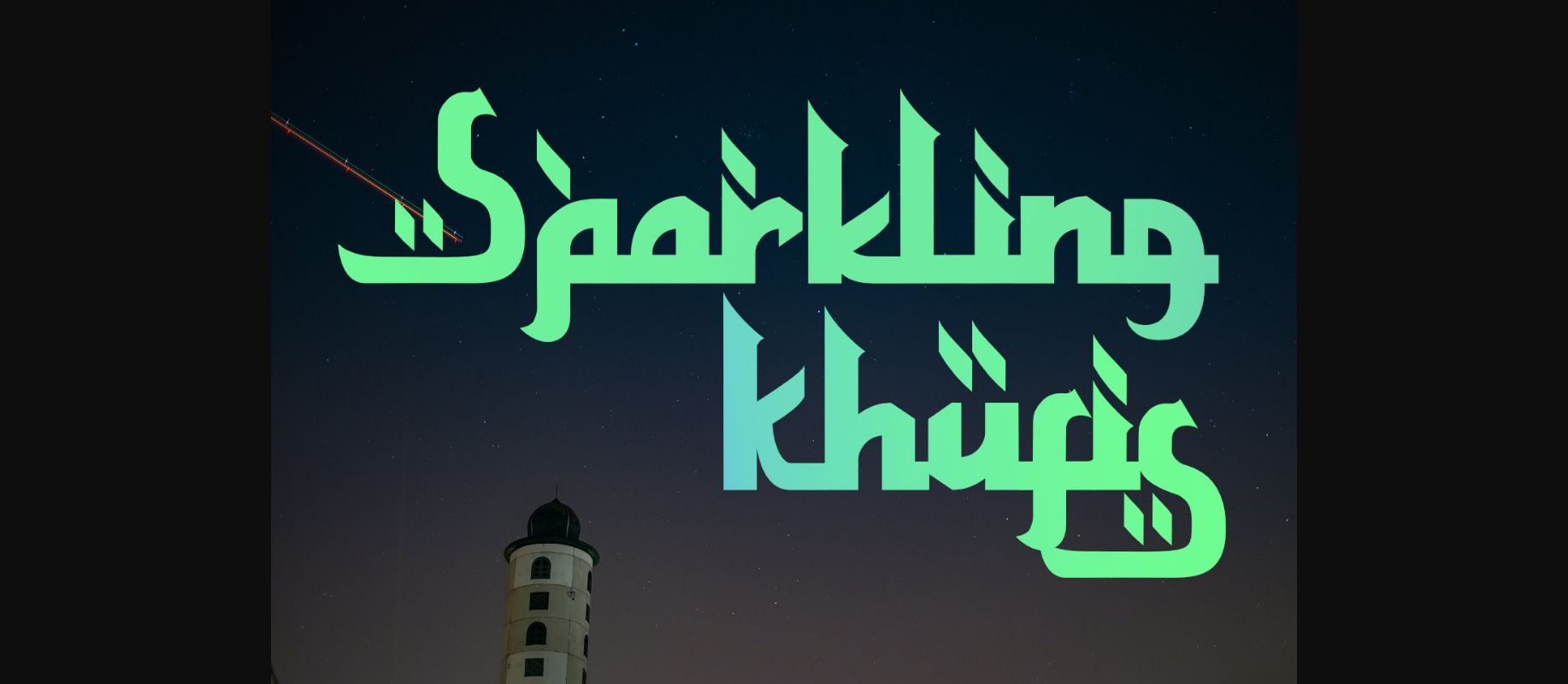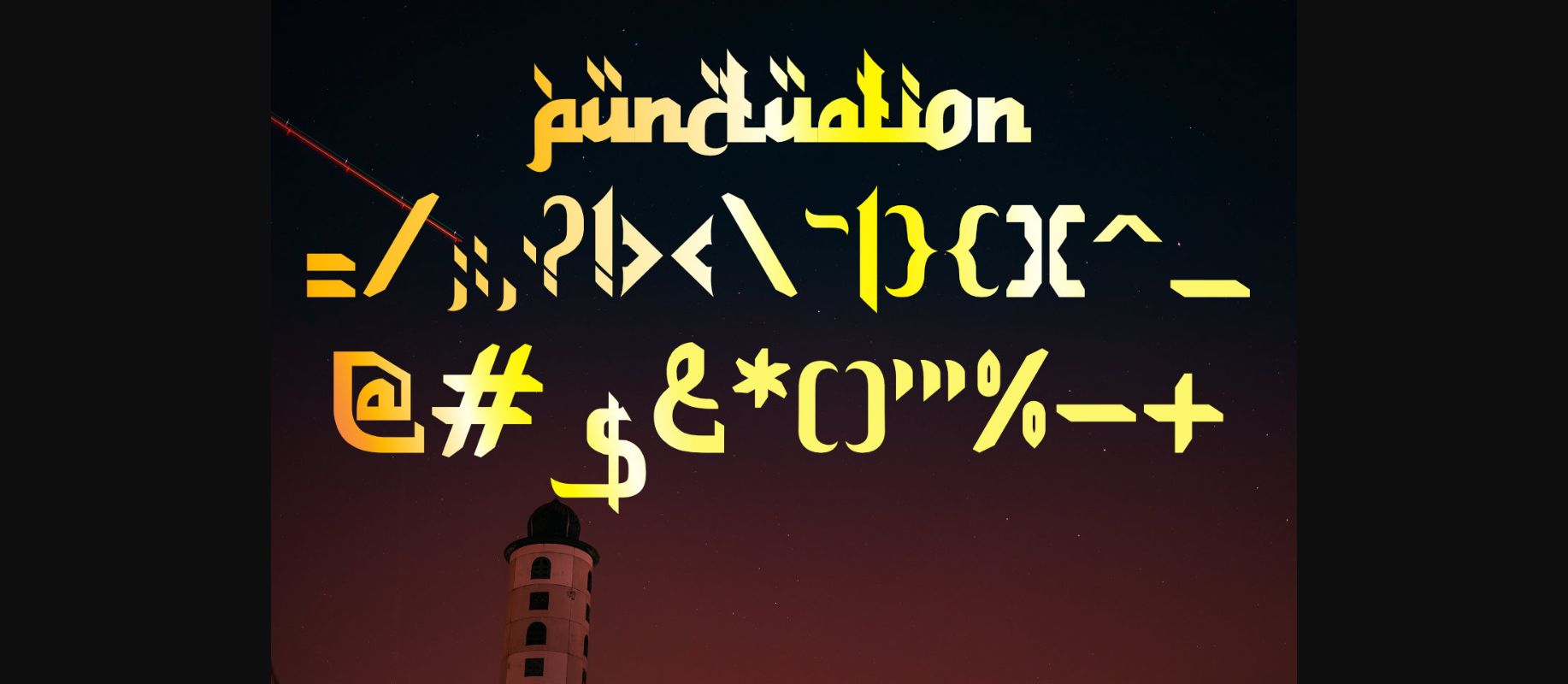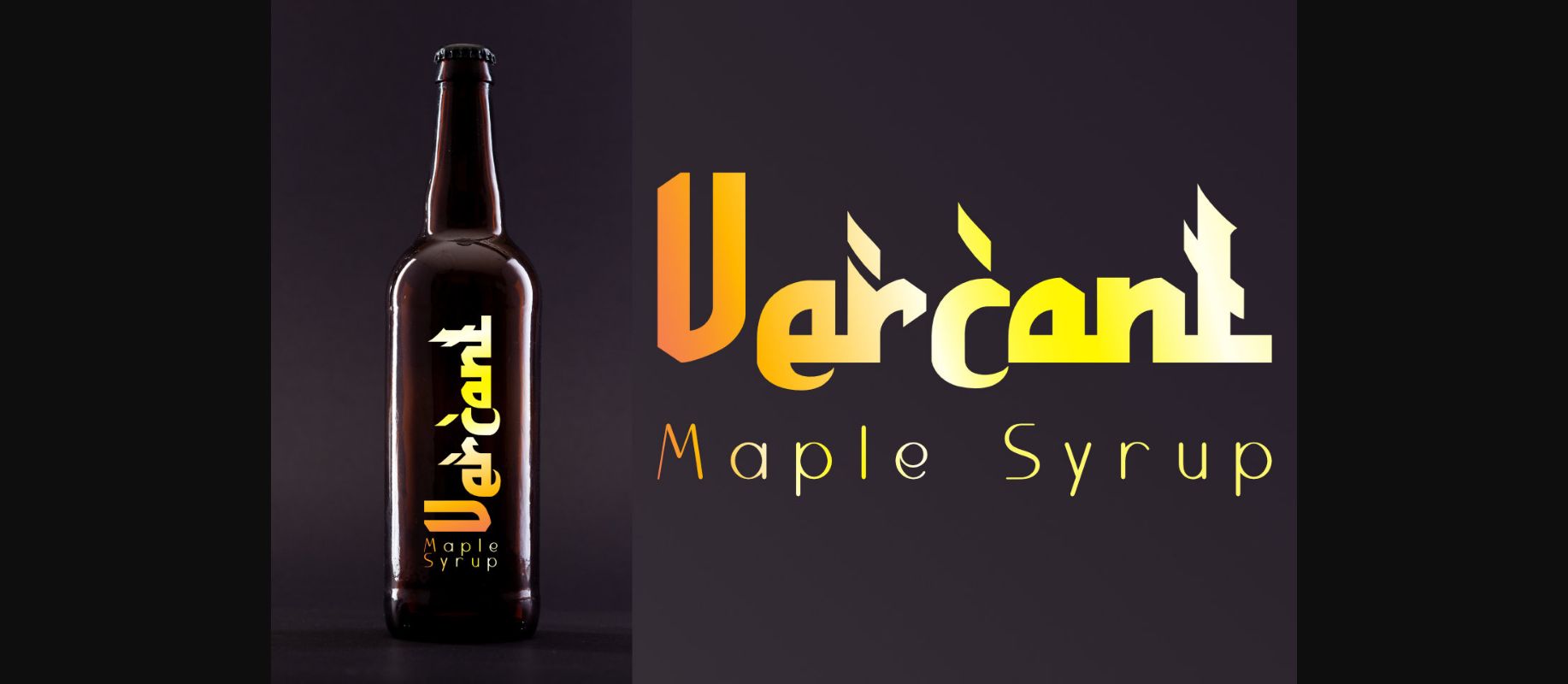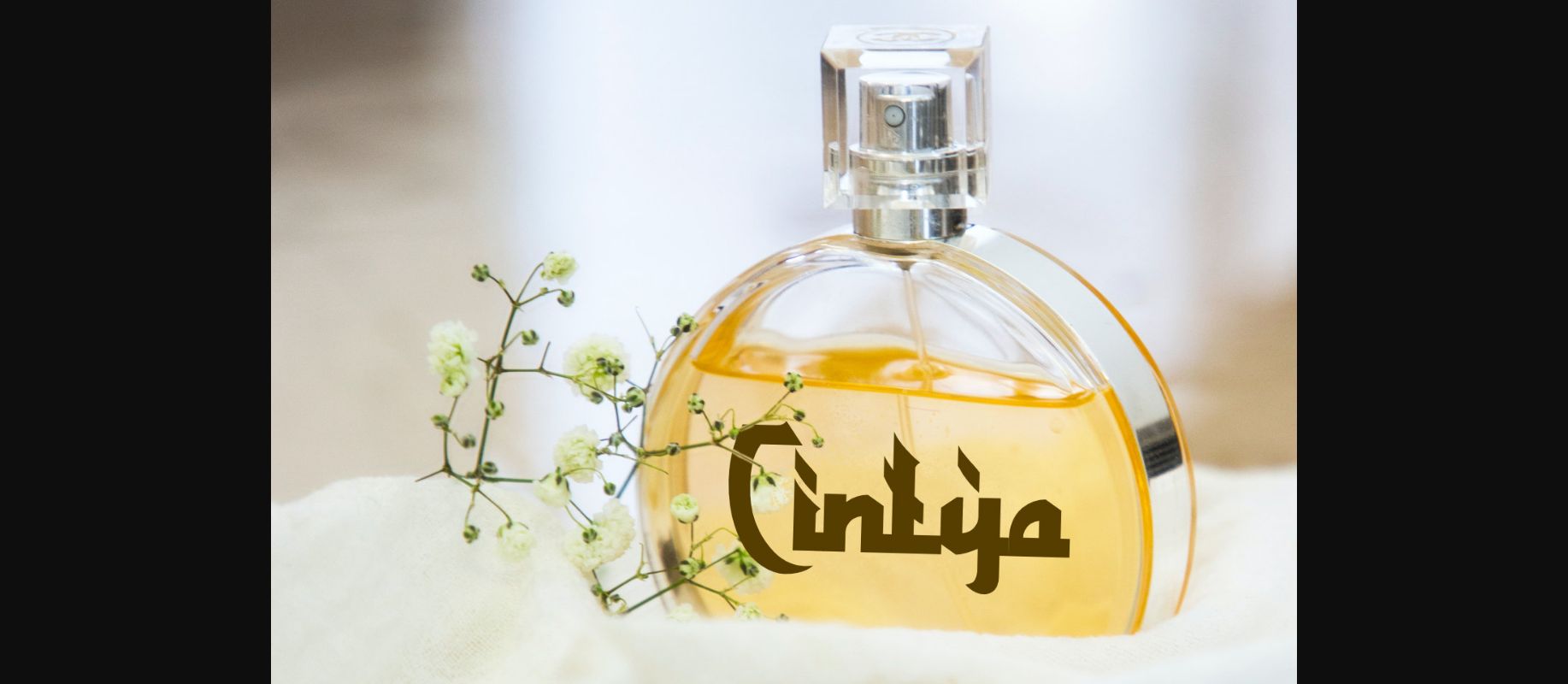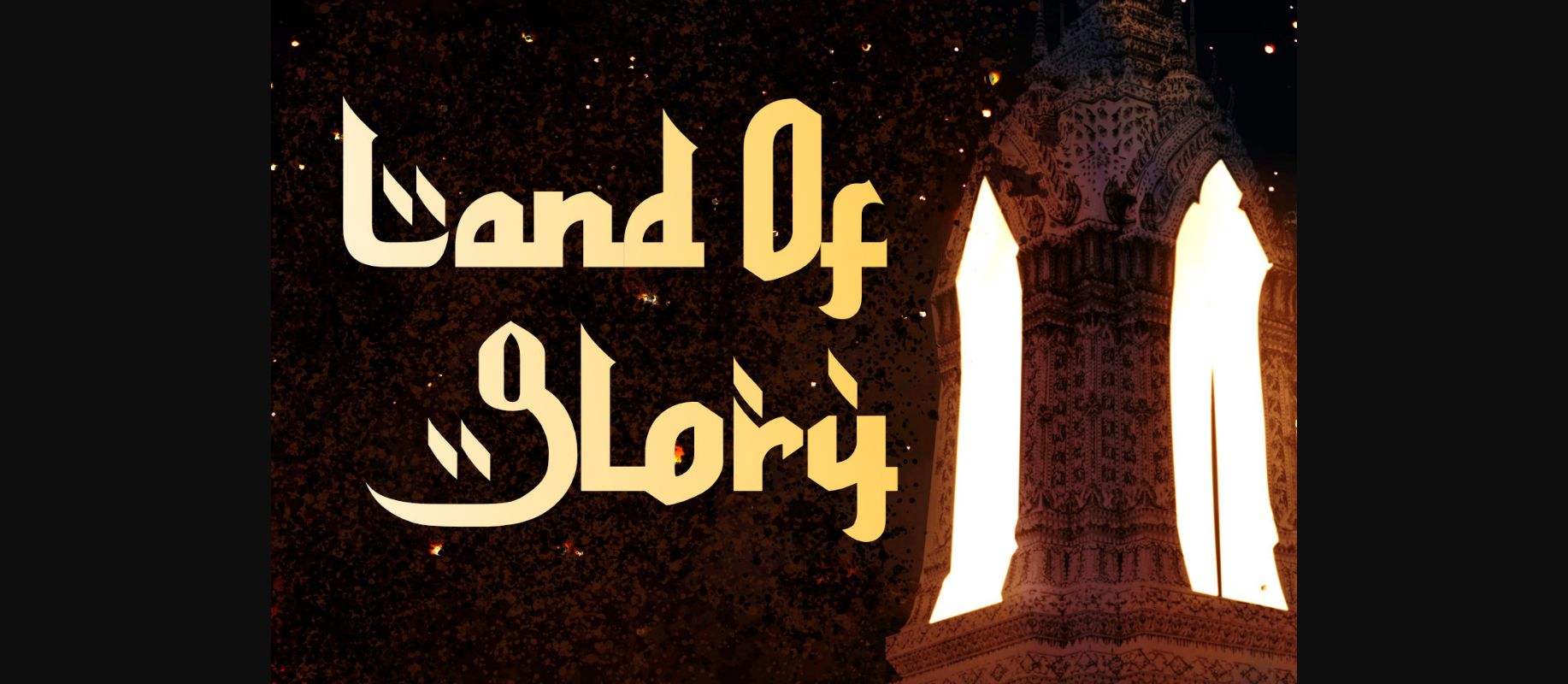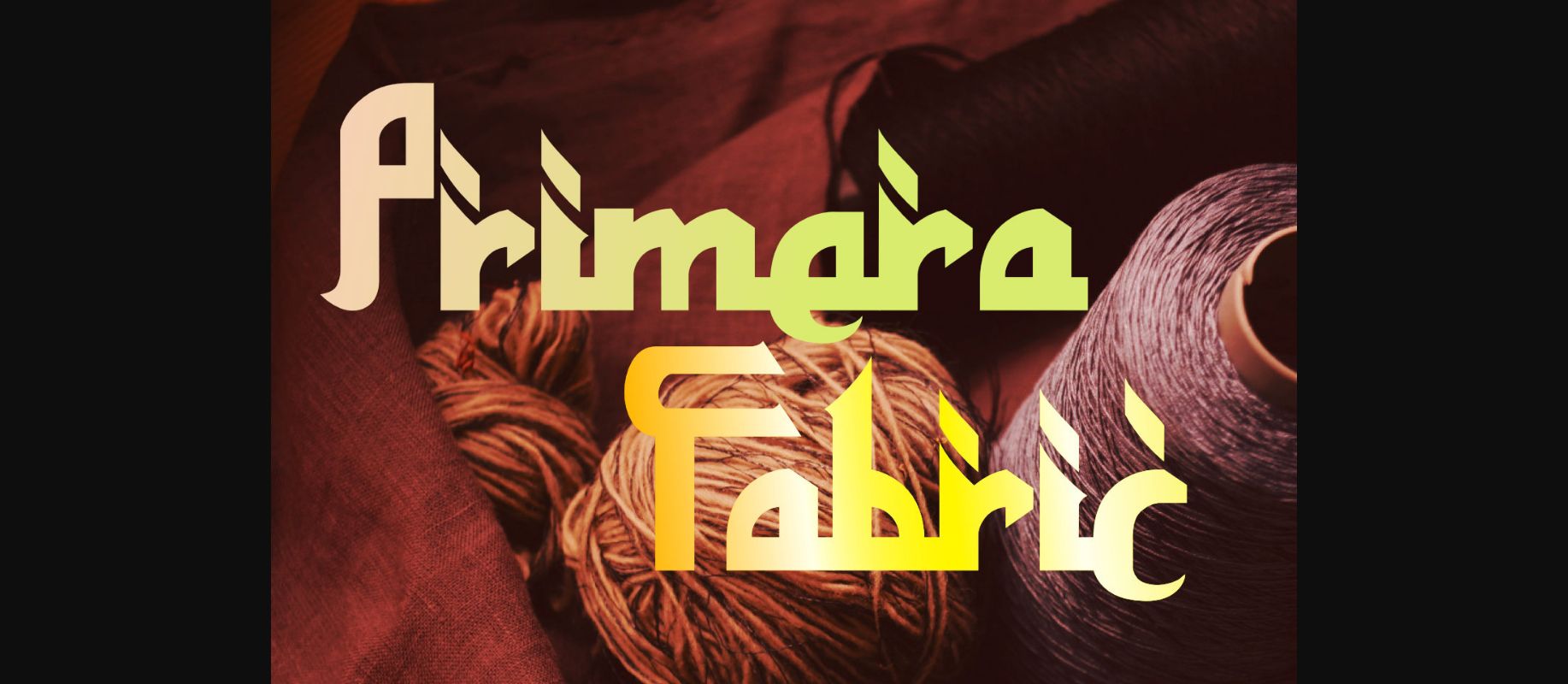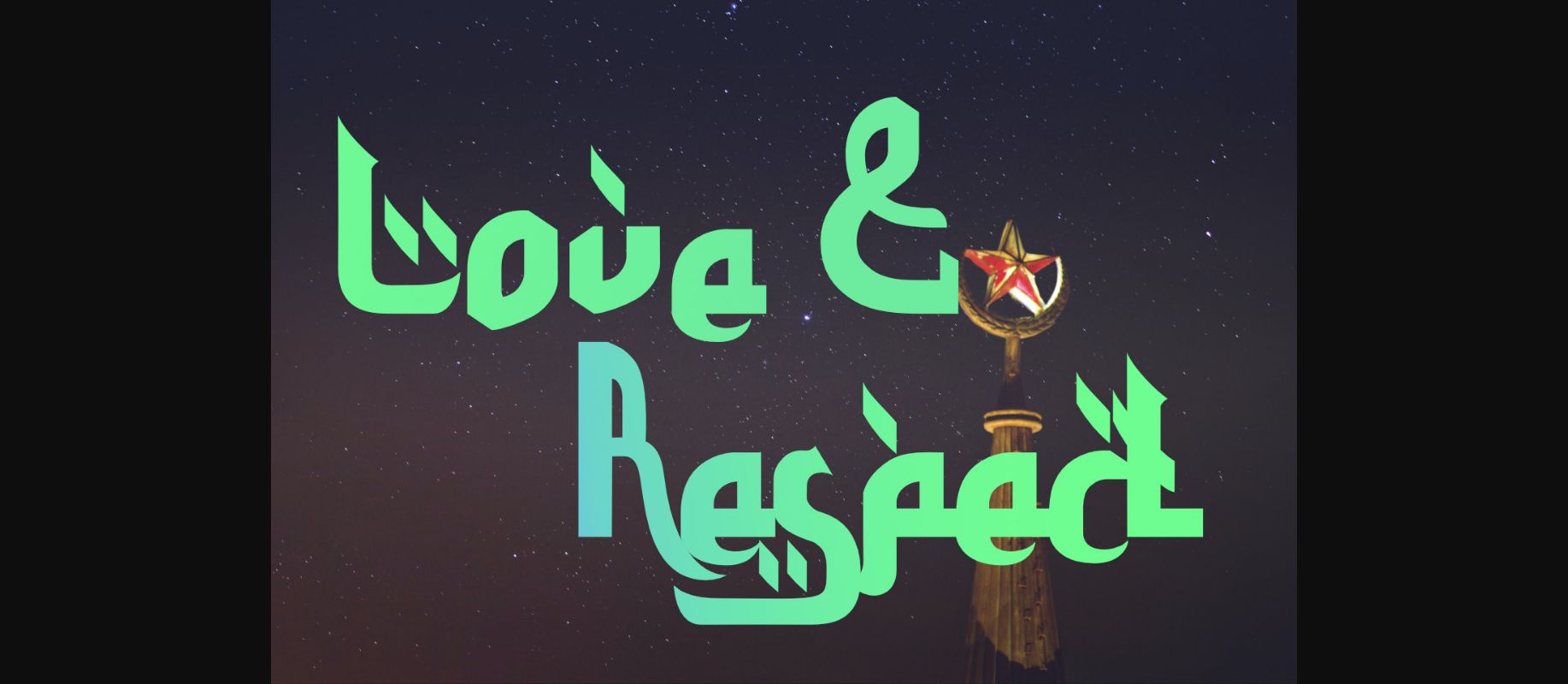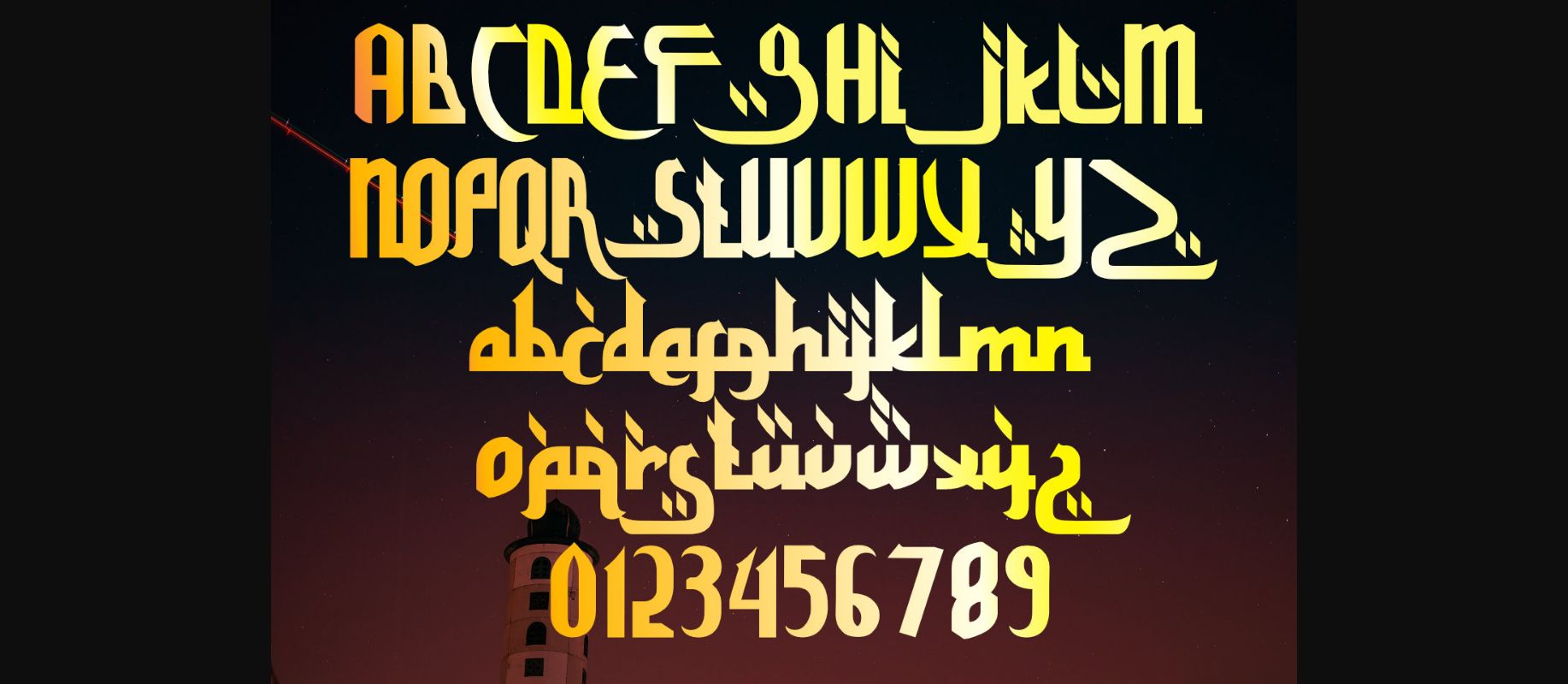
Sparkling Khufis Font
About Sparkling Khufis Font
Sparkling Khufis embodies fun, quirkiness and authenticity. This enchanting decorative font will turn any creative idea into a true standout.